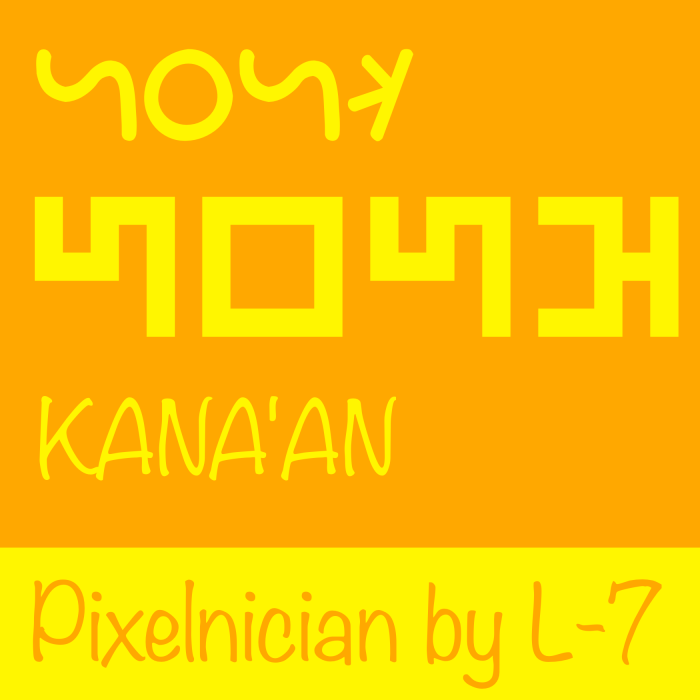
• A pixel font for Phoenician.
Aleph - A
Bet - B
Gimel - G
Dalet - D
He - H
Waw - W
Zayin - Z
Het - C
Tet - J
Yod - Y
Kaph - K
Lamed - L
Mem - M
Nun - N
Samek - X
Ayin - O
Pe - P
Tsade - F
Qoph - Q
Resh - R
Shin - S
Taw - T